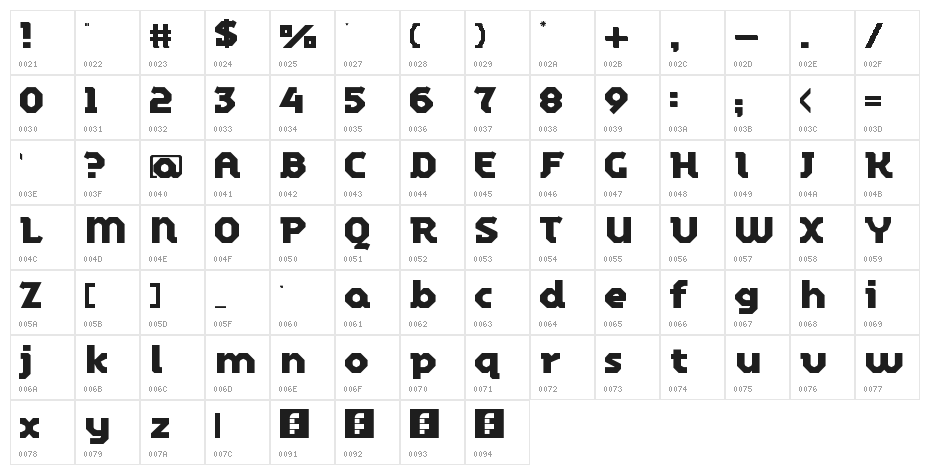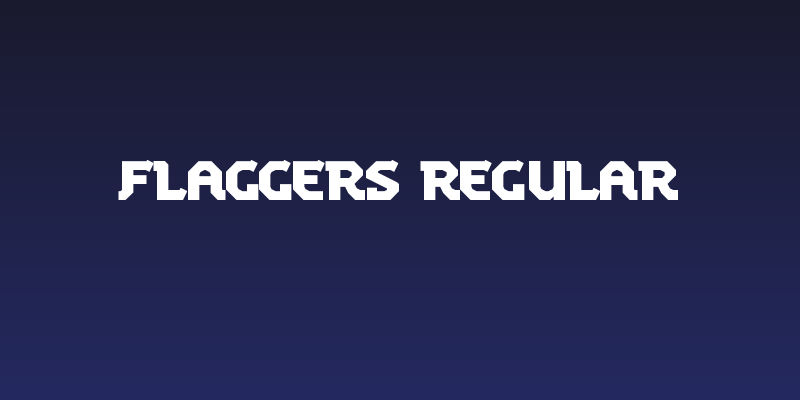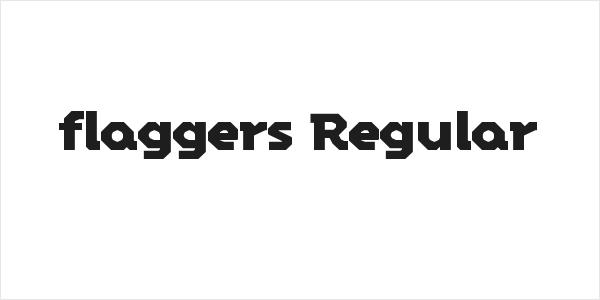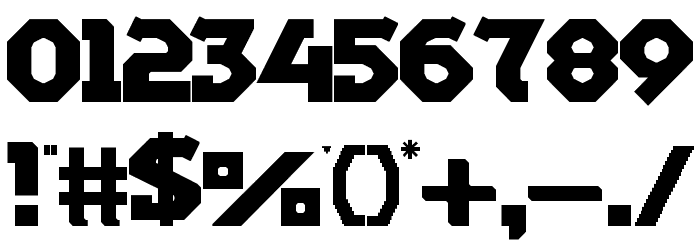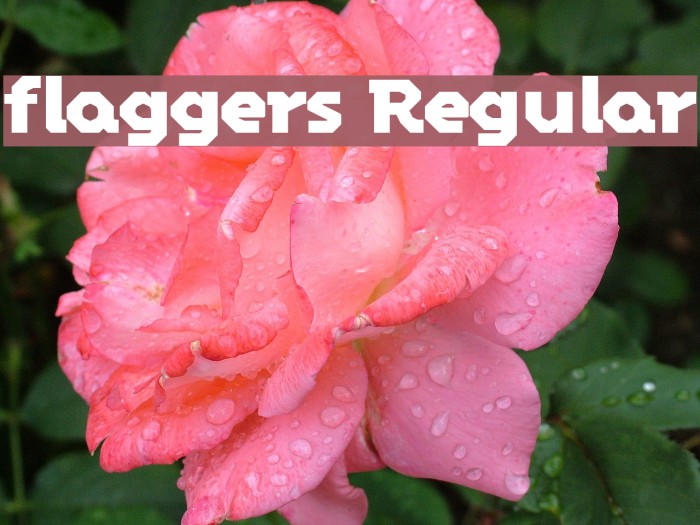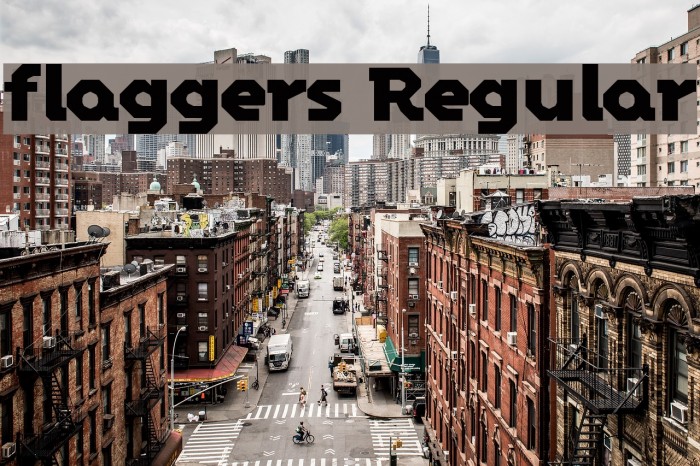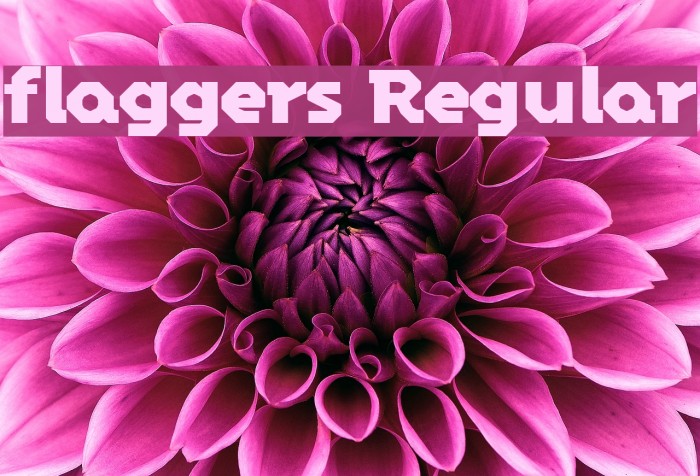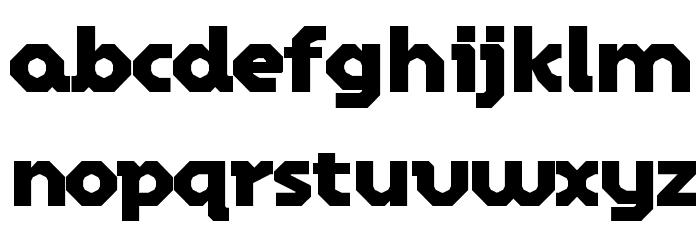
flaggers Regular Font
flaggers Regular Description
This font features a bold and geometric design with a distinct blocky appearance. The characters are constructed with sharp angles and straight lines, giving it a modern and industrial feel. The uppercase letters are uniform in height, while the lowercase letters maintain a consistent style, contributing to a cohesive look. The numerals are equally bold, ensuring readability and impact. Special characters are designed to match the overall aesthetic, making this font suitable for a variety of applications where a strong visual presence is desired. The font's unique style makes it stand out, ideal for projects that require a contemporary and assertive typeface.